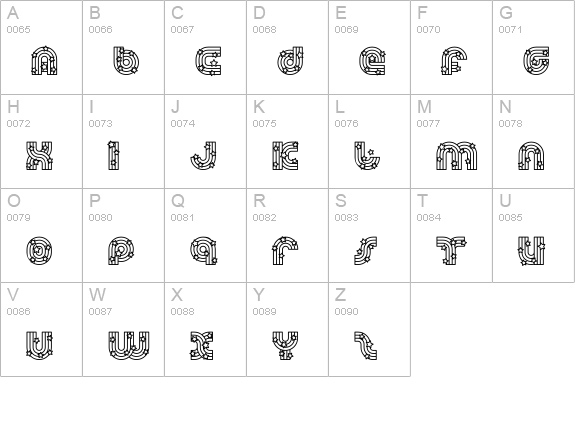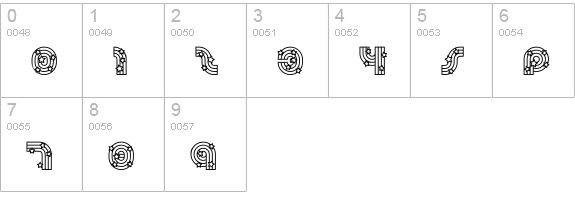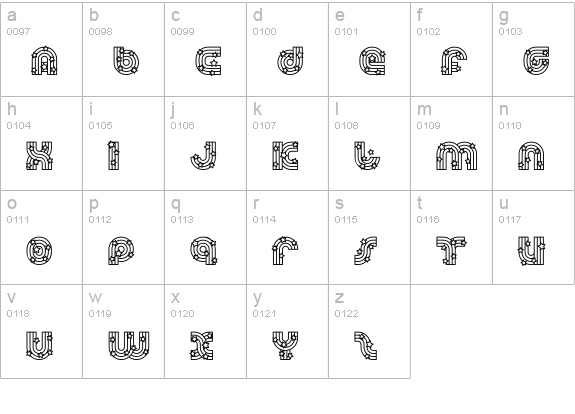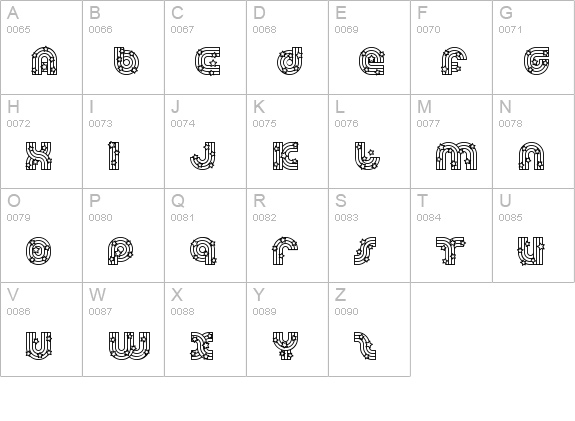
Dreamland Stars Font Details
Dreamland Stars font is a whimsical and playful typeface that captures the magic of a starry night sky. Its unique design features stars sprinkled throughout each character, adding a touch of enchantment to any project. The elegant curves and smooth lines of this font make it perfect for a variety of creative endeavors, from invitations to posters to branding materials. Best of all, Dreamland Stars font is completely free to download at FontsMarket.com. Whether you're working on a personal project or a professional design, this font is sure to add a touch of sparkle and charm. Download Dreamland Stars today and bring a touch of magic to your next creative endeavor.